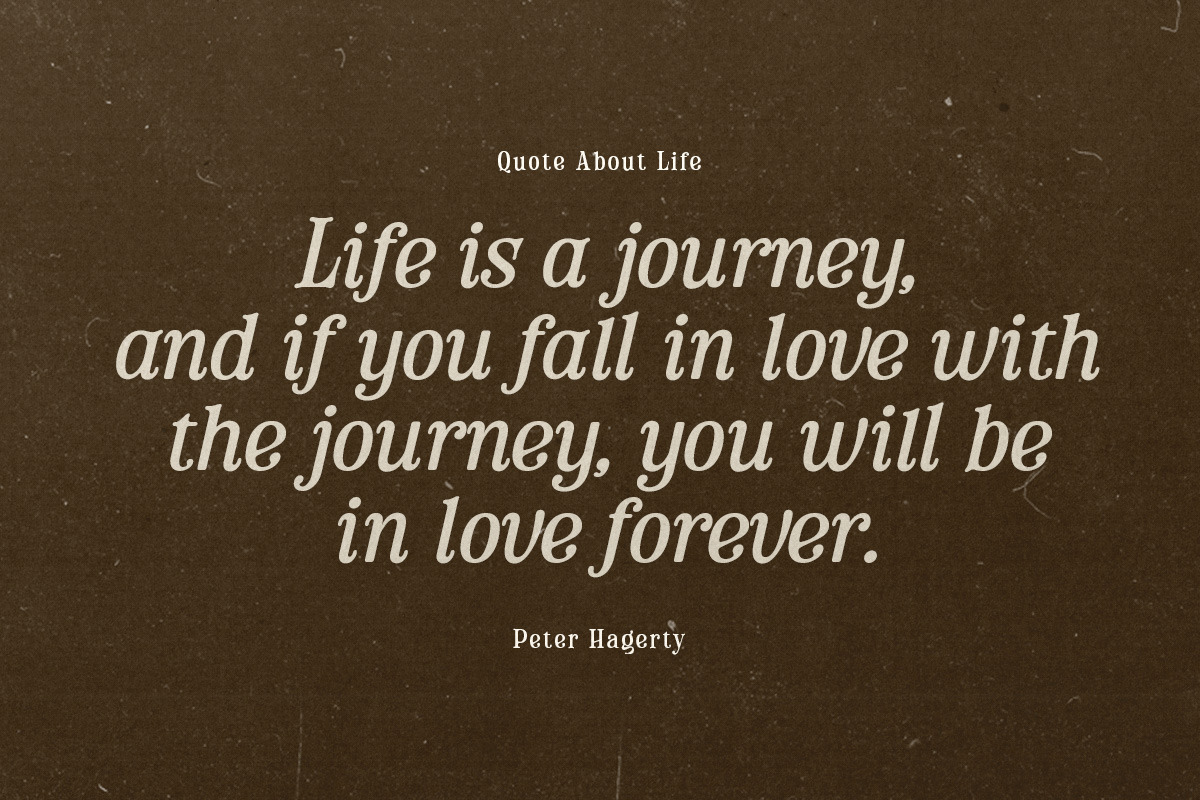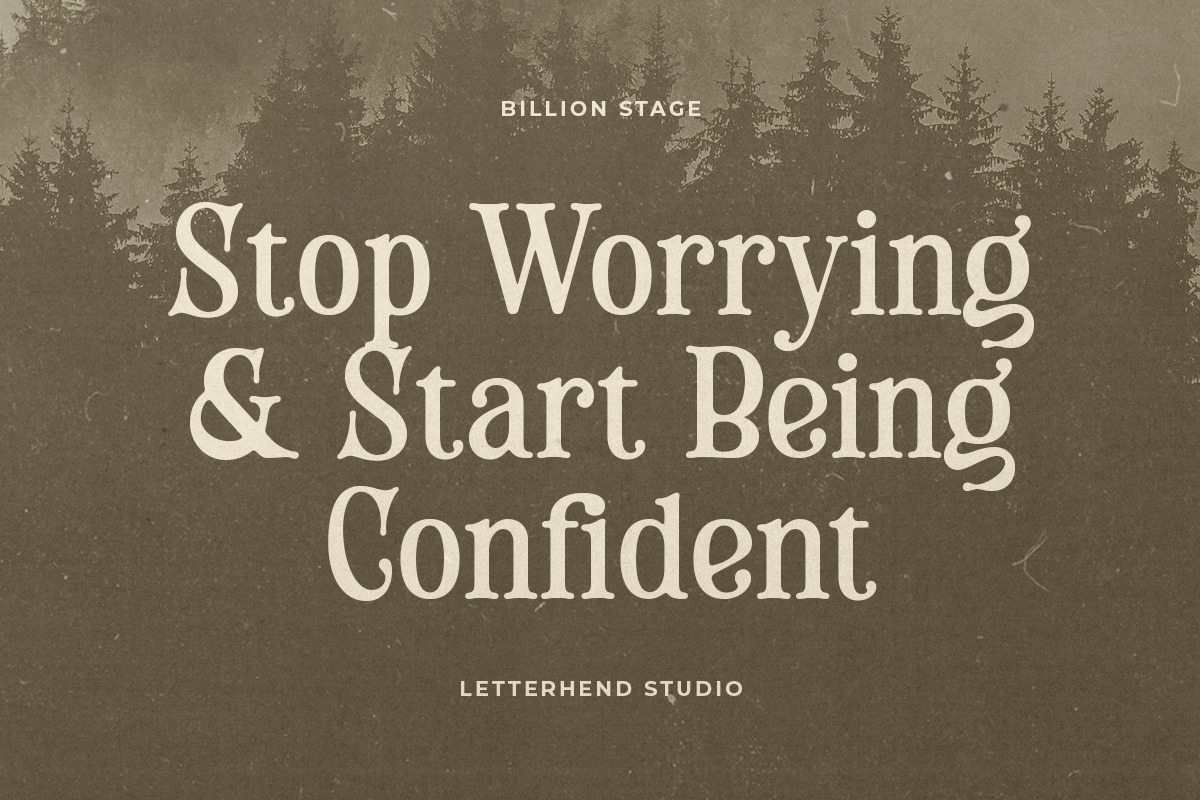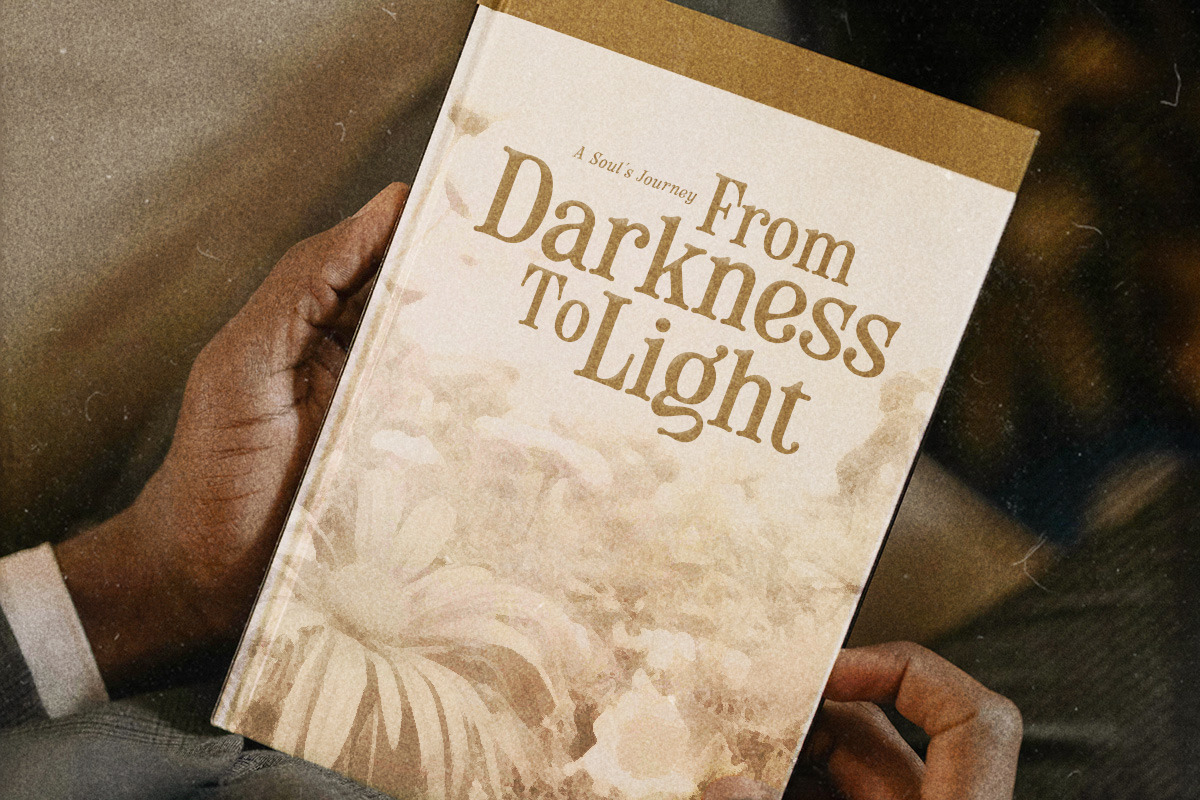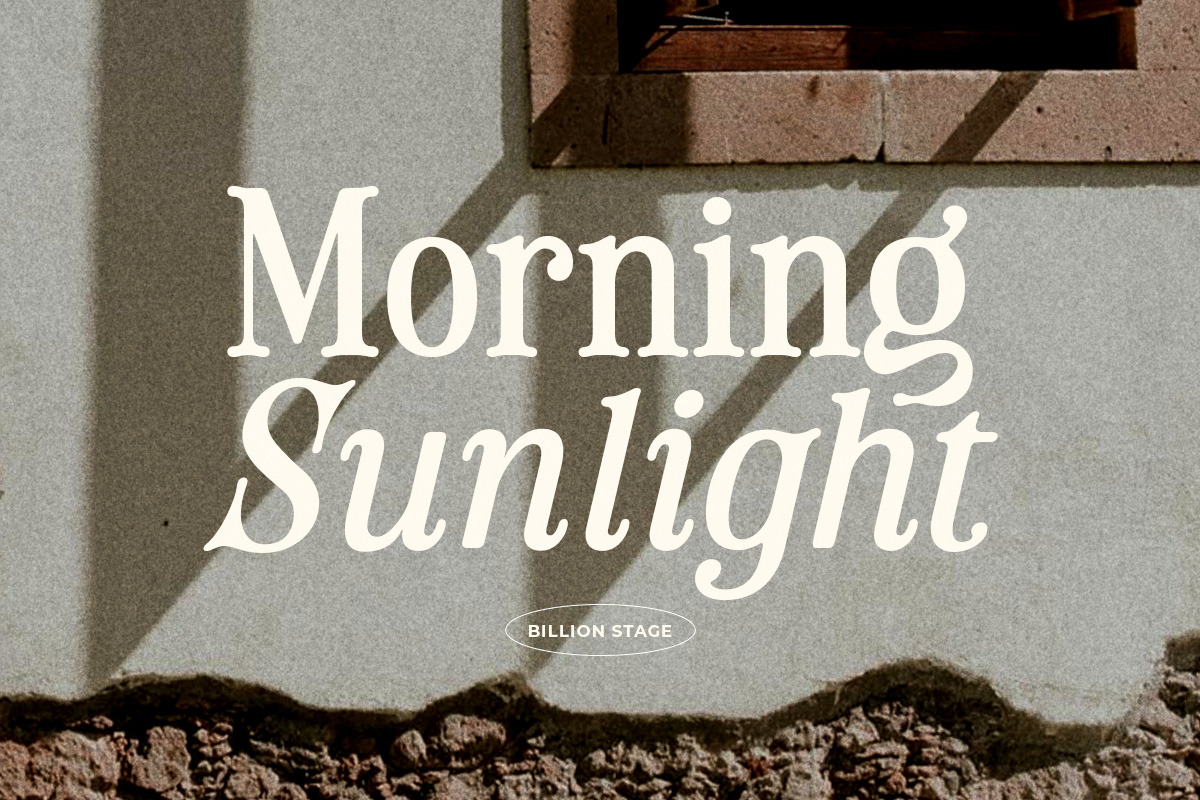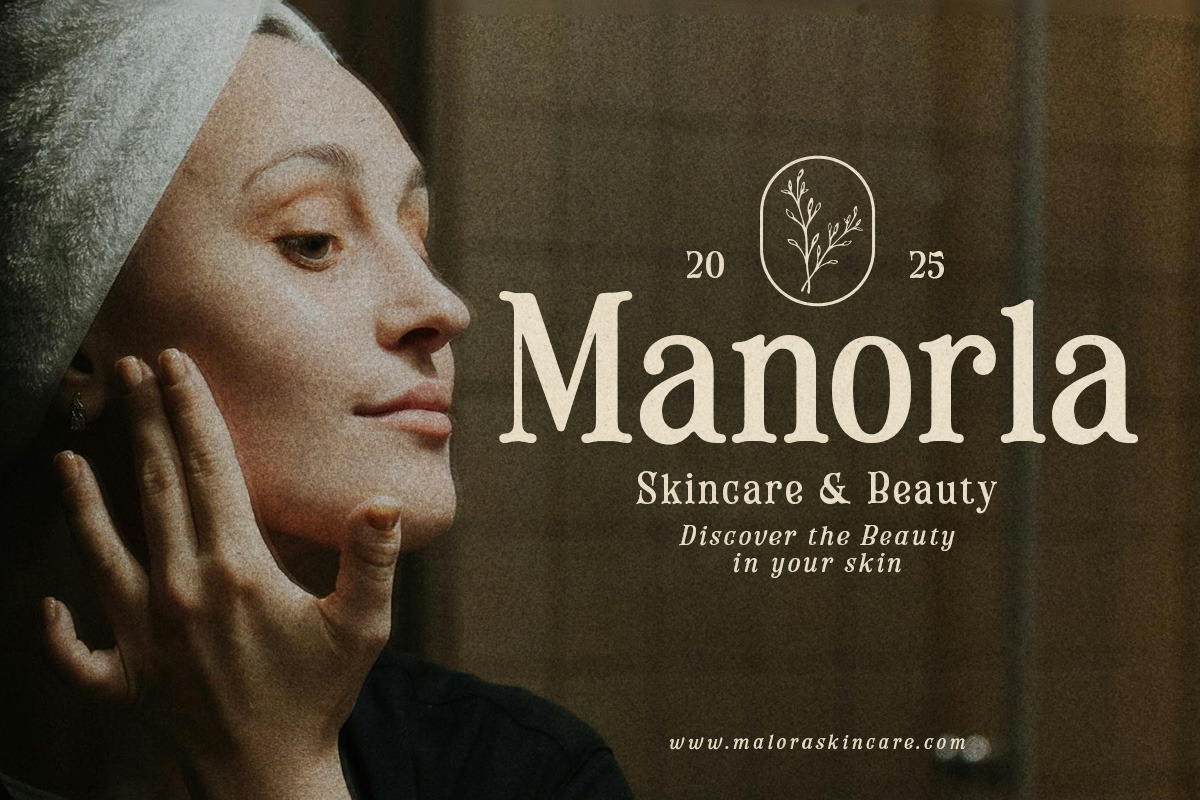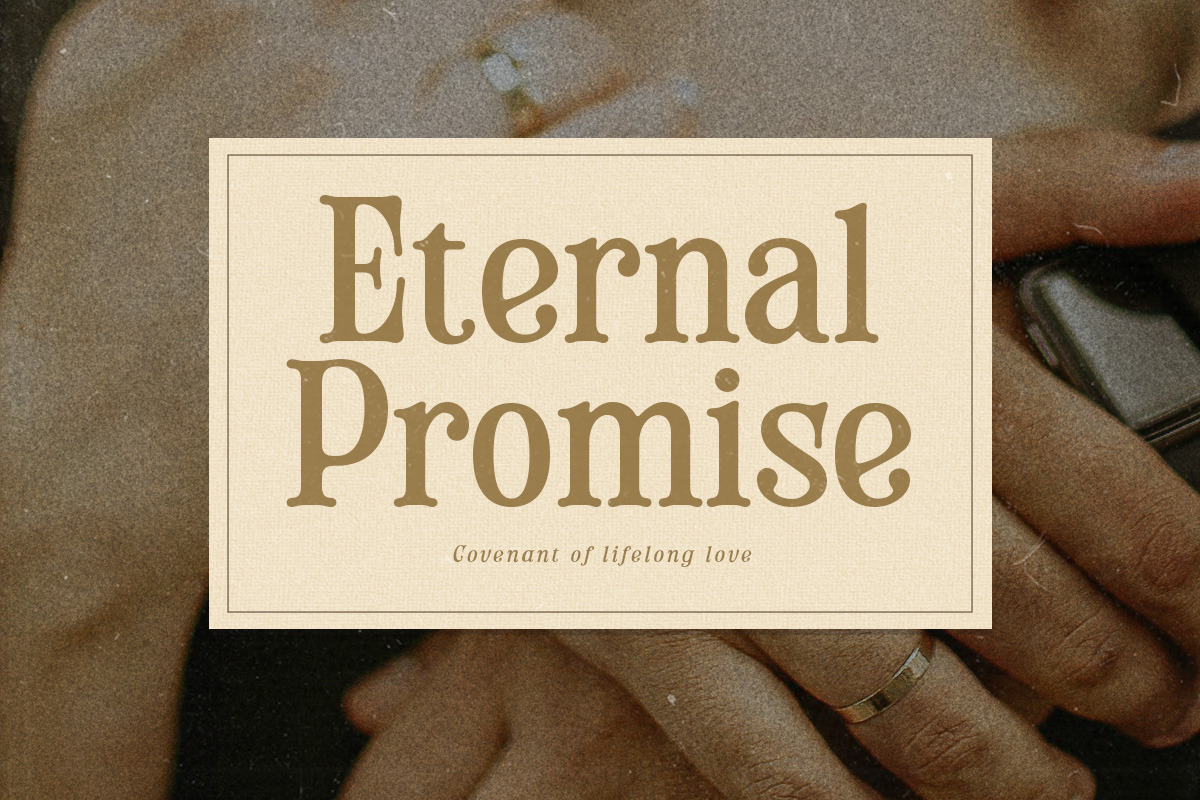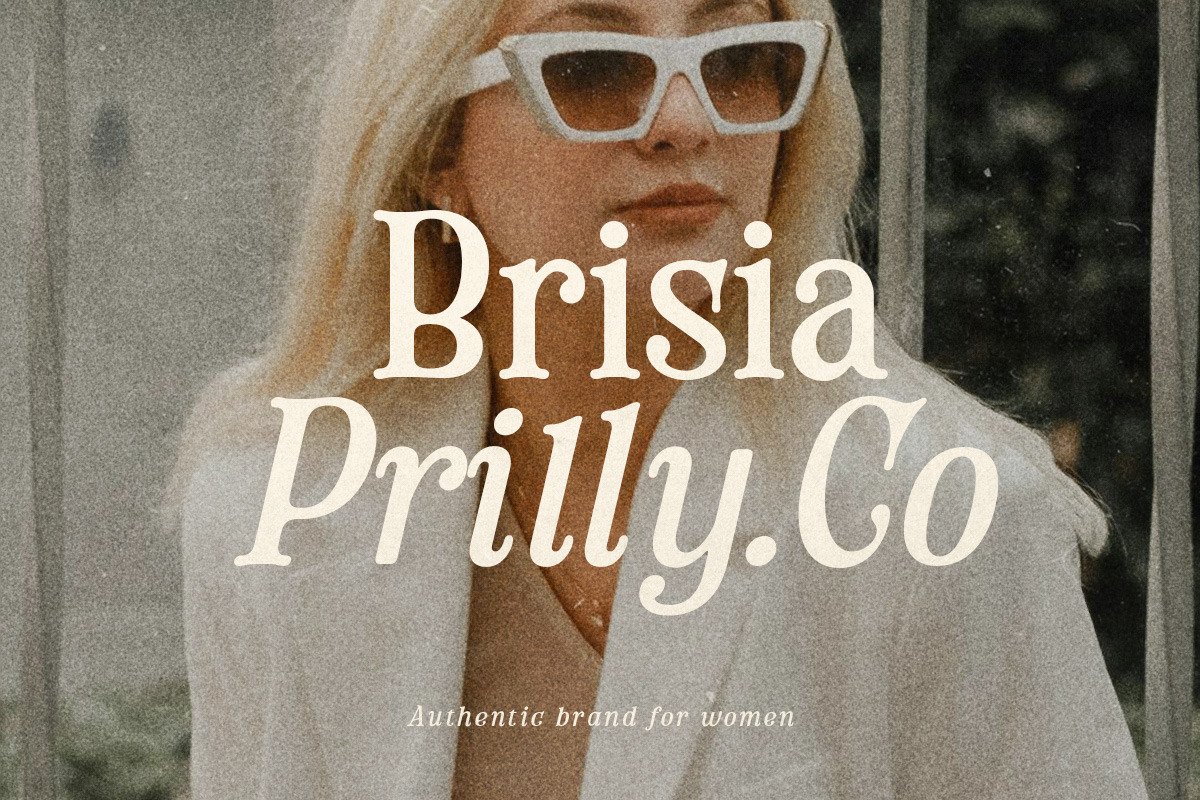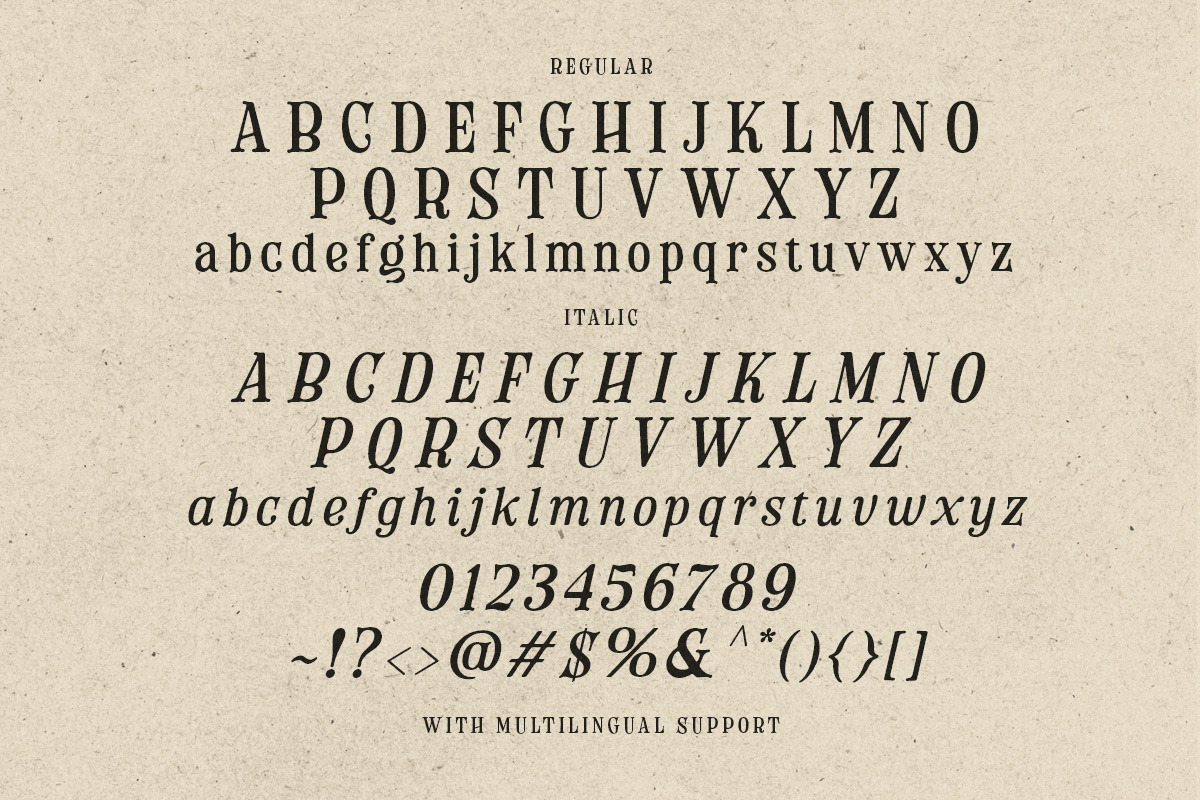
Billion Stage Serif
Introducing Billion Stage – a bold and elegant serif typeface that exudes vintage charm with a modern twist. Designed to bring sophistication and timeless appeal, this font is perfect for branding, editorial design, logo creation, product packaging, invitations, and more. With its refined letterforms, smooth curves, and stylish ligatures, Billion Stage adds a luxurious and classic touch to any design project. Available in both regular and true italic styles, it offers versatility for designers seeking a high-end and artistic aesthetic. Whether you’re crafting a retro-inspired logo or a sleek contemporary layout, Billion Stage provides the perfect balance of readability and decorative flair.